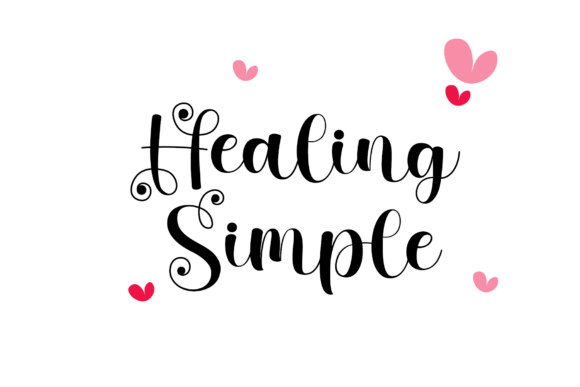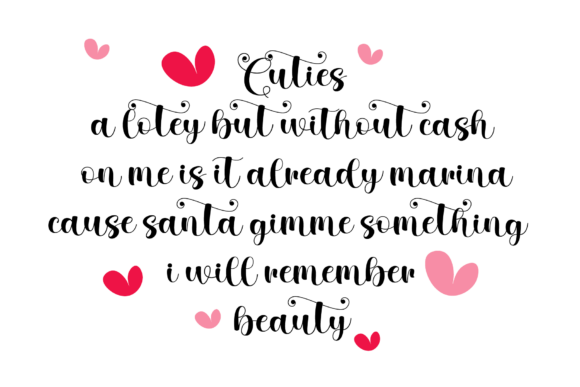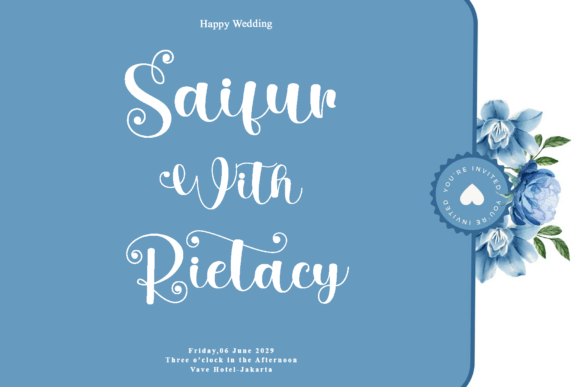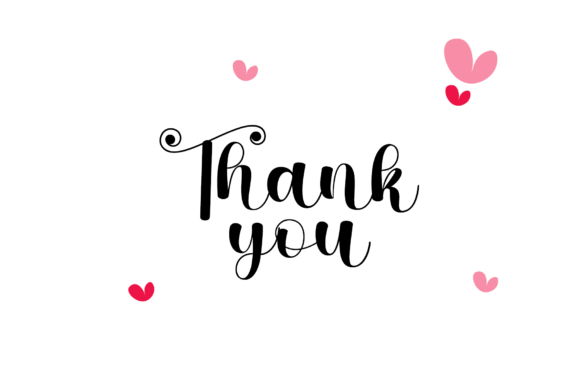
Introduction to Beauty Melting Font
Beauty Melting is a graceful, modern, and stylized handwritten script font.
It features smooth, fluid strokes and lovely ornamental curves, giving it a feminine, professional, and slightly romantic touch The consistent weight and clean connections ensure excellent legibility.
Key Features of Beauty Melting Font